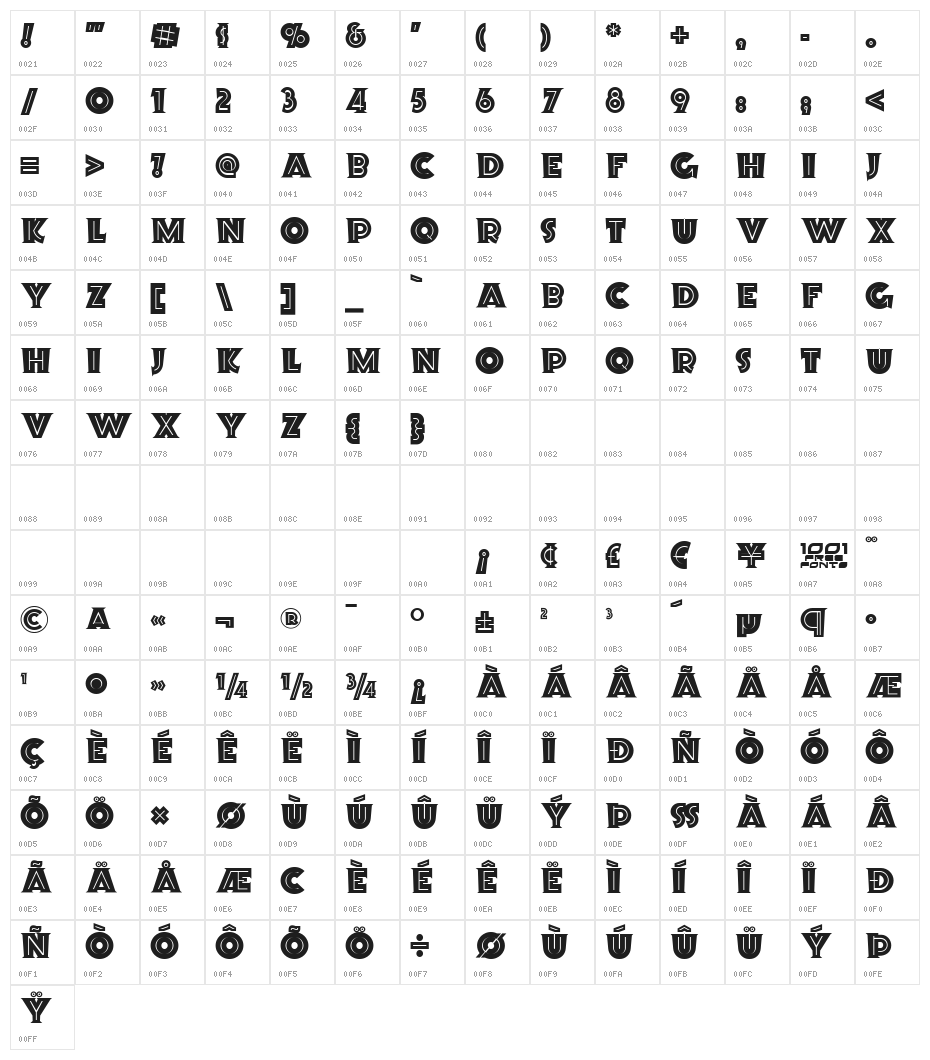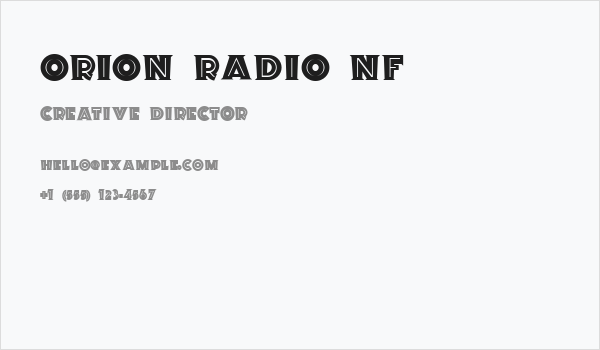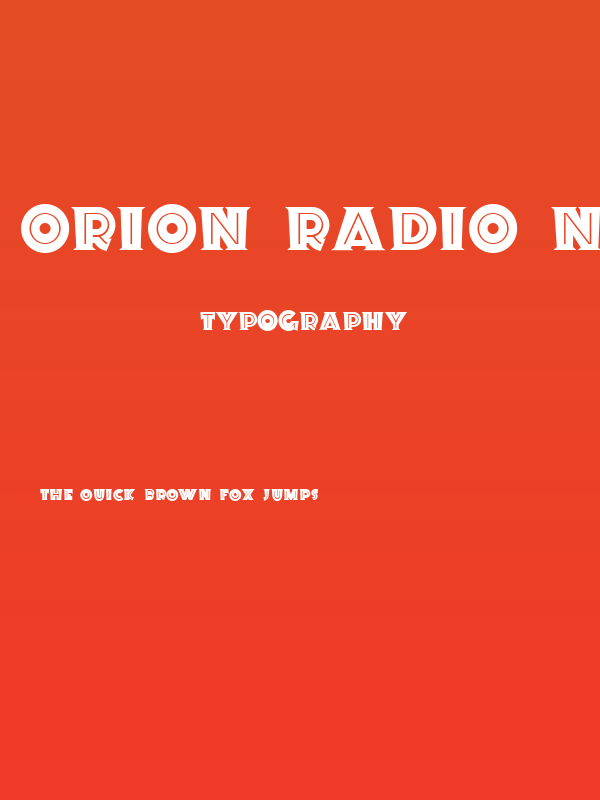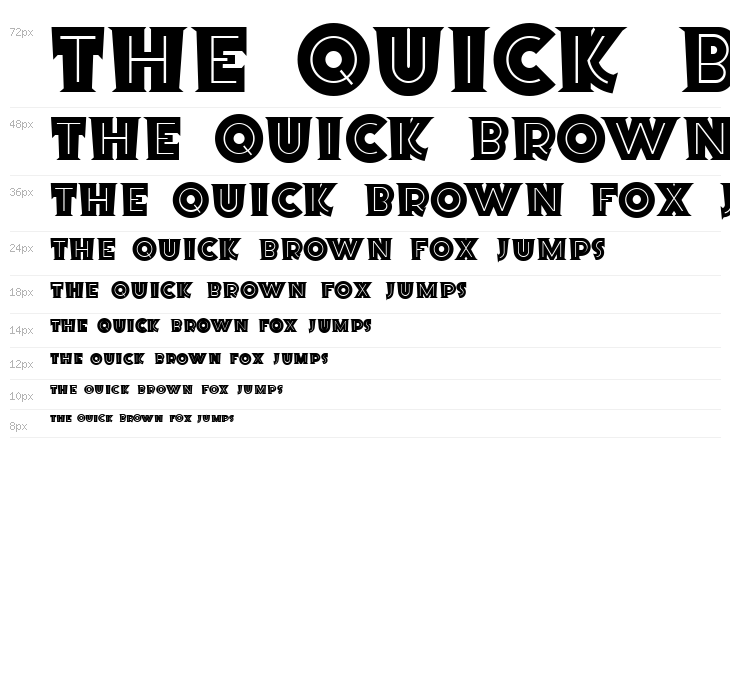
Orion Radio NF Font
Orion Radio NF Description
This font features a bold and striking design with a vintage flair, characterized by its thick, angular strokes and geometric shapes. The uppercase letters are particularly prominent, with sharp edges and a strong presence. The lowercase letters maintain the same boldness, ensuring consistency across the typeface. Numbers and special characters are equally bold, with unique design elements that add to the overall decorative style. The font's high contrast between thick and thin strokes enhances its visual impact, making it ideal for attention-grabbing headlines and logos.
| Proposed Projects | Ideal for retro-themed posters, branding, logos, and headlines that require a strong visual impact. |